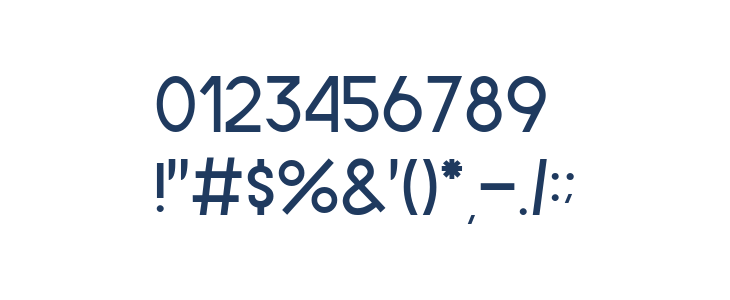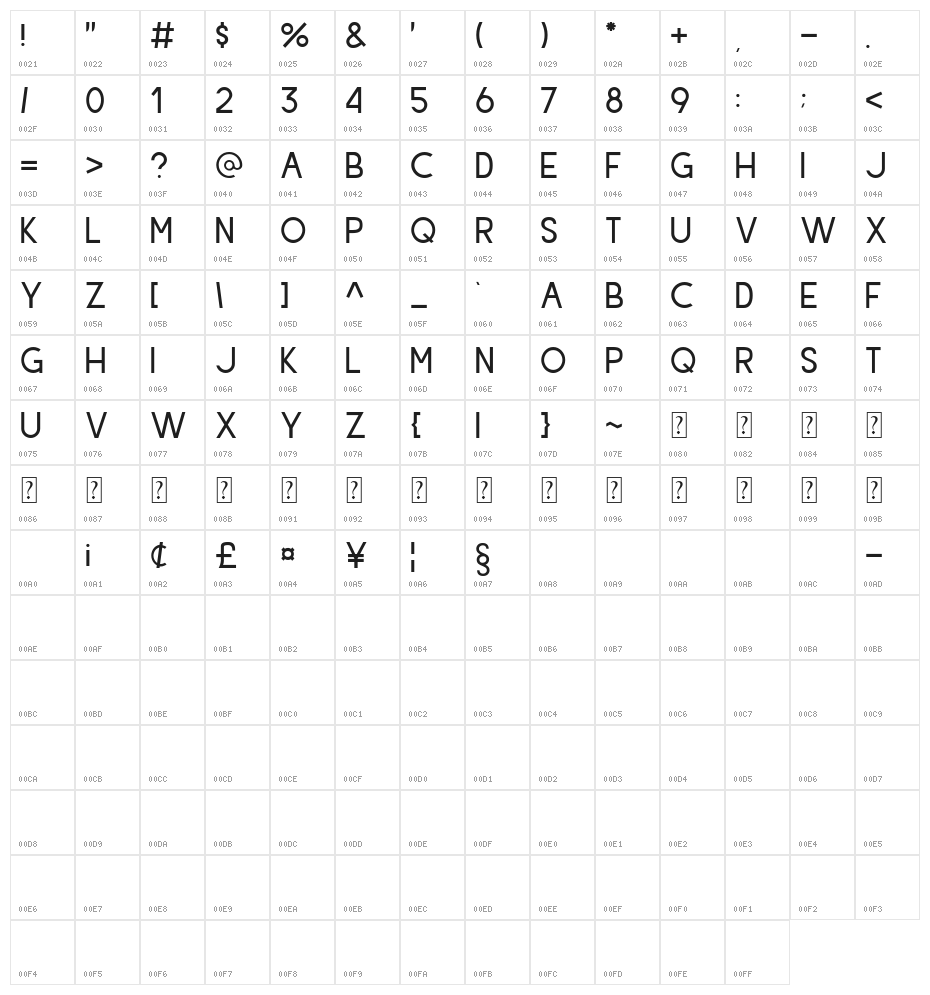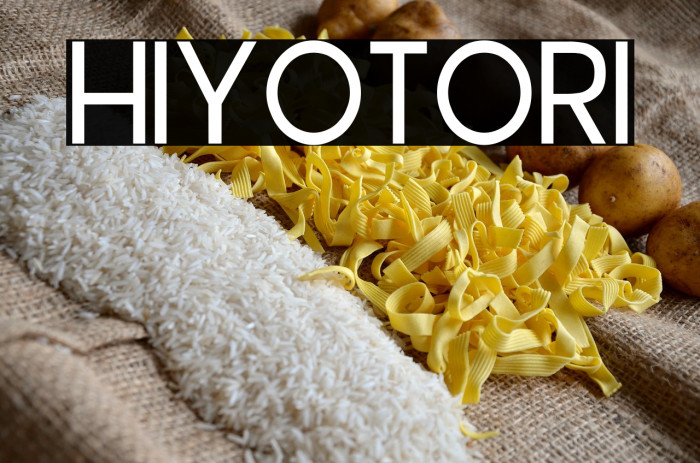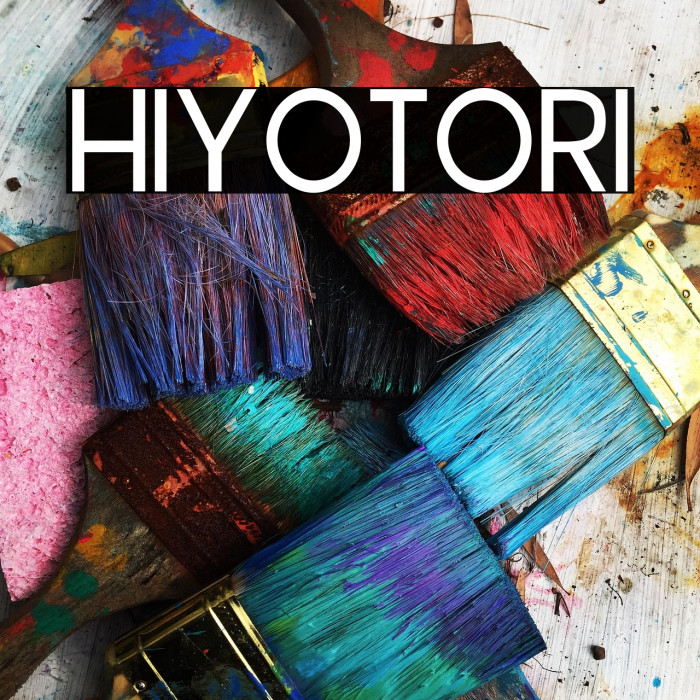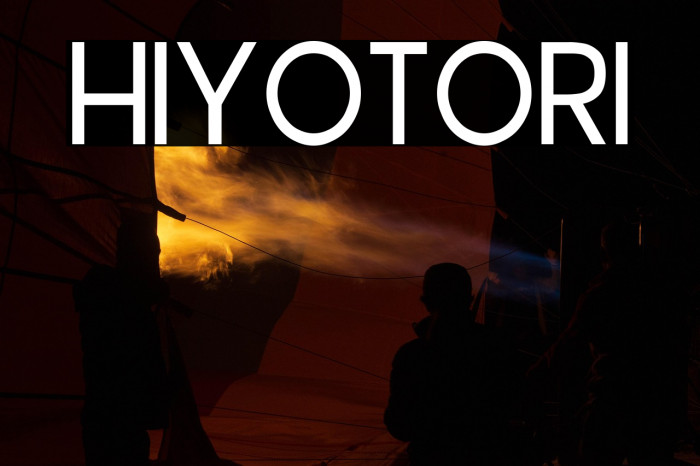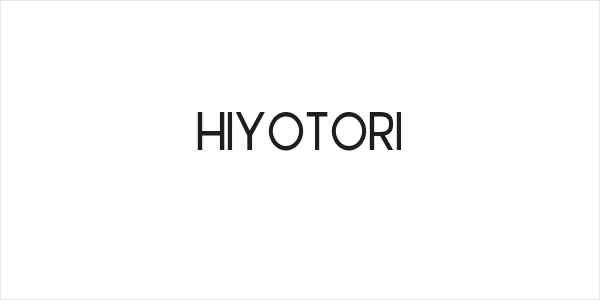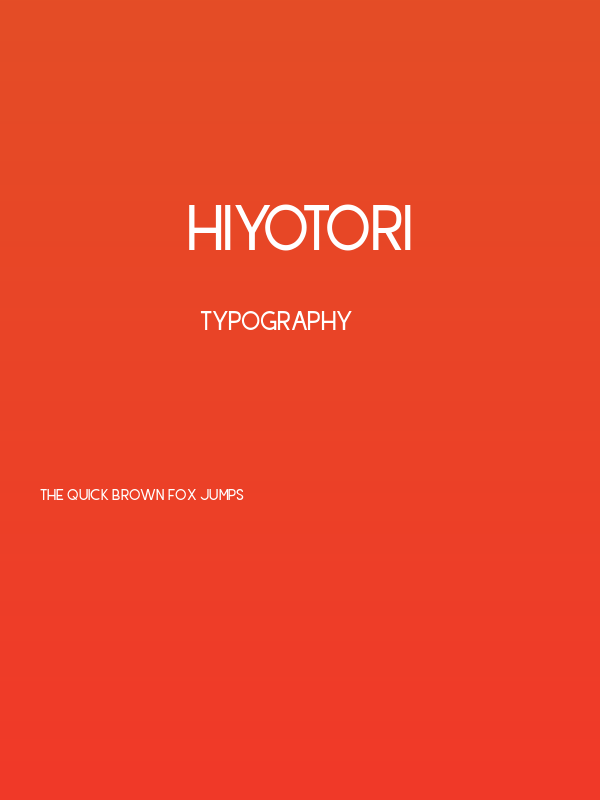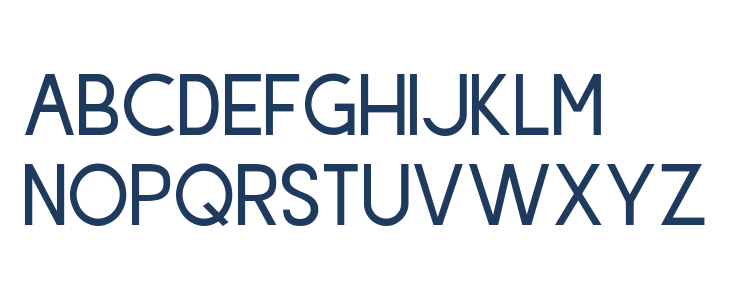
Hiyotori Font
Hiyotori Description
This font features a clean and modern sans-serif design, characterized by its geometric shapes and uniform stroke widths. The uppercase and lowercase letters are well-proportioned, with a consistent height and width that enhances readability. The numerals are clear and distinct, making them suitable for various applications. Special characters are included, maintaining the font's cohesive style. The overall appearance is sleek and professional, making it versatile for both digital and print media.